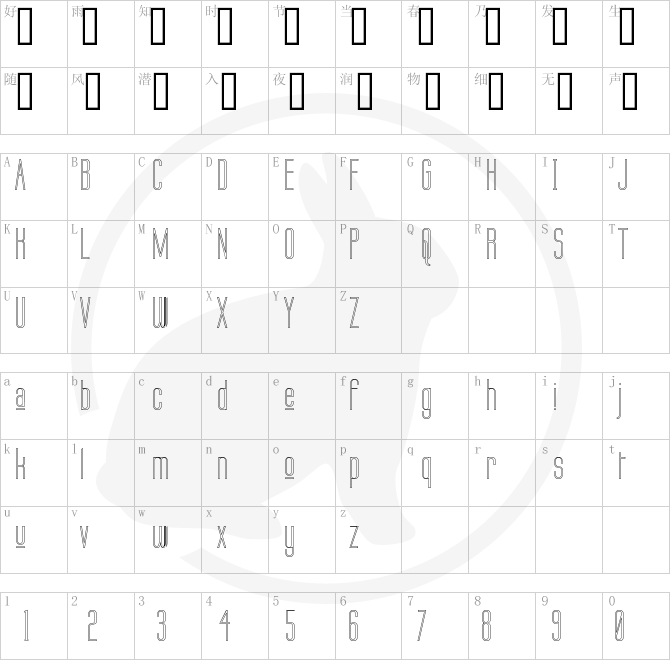
- Font Name:Labtop Upper Outline
Labtop-Upper-Outline.ttf is a very beautiful artistic font, Labtop-Upper-Outline.ttf is widely used in the design and printing of various books and pictures,Labtop-Upper-Outline.ttf has a strong visual impact,Labtop-Upper-Outline.ttf is a commonly used font in newspapers, magazines and books, and is used in posters, e-commerce Poster design, store design, logo design, font design and other fields.Labtop-Upper-Outline.